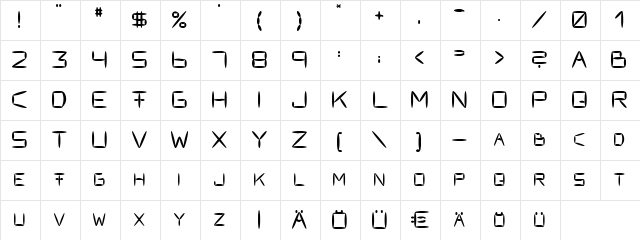
Complete Fracksausen 1 glyph index. Displaying only characters natively supported by Fracksausen 1 font.
Fracksausen is a composed and adaptable typeface that performs quietly and consistently across a wide range of design contexts.